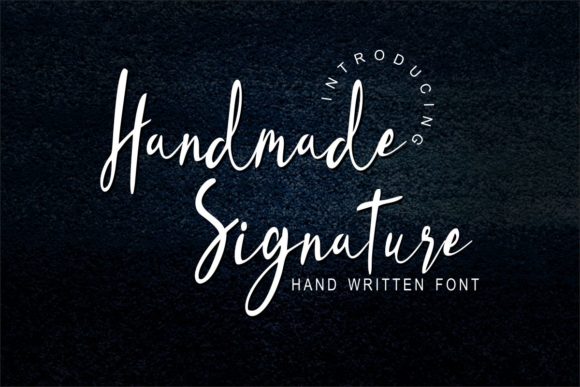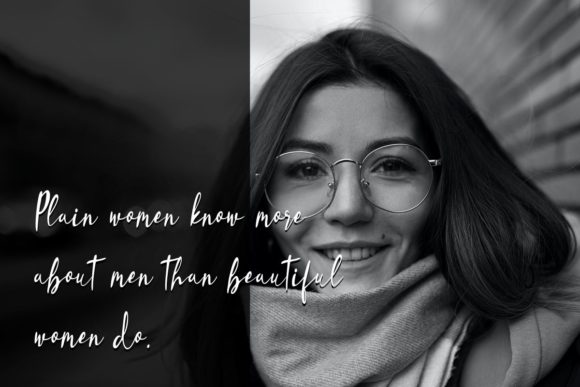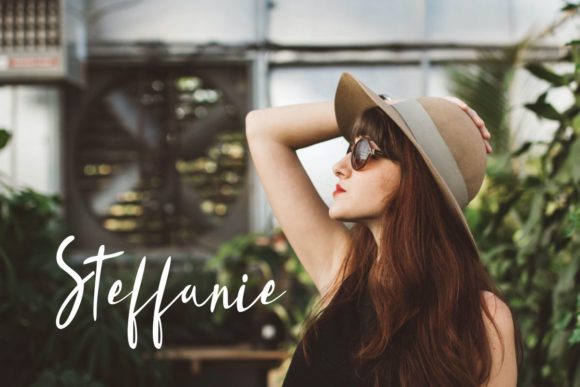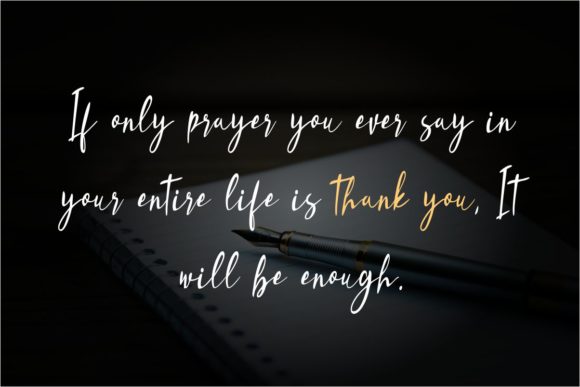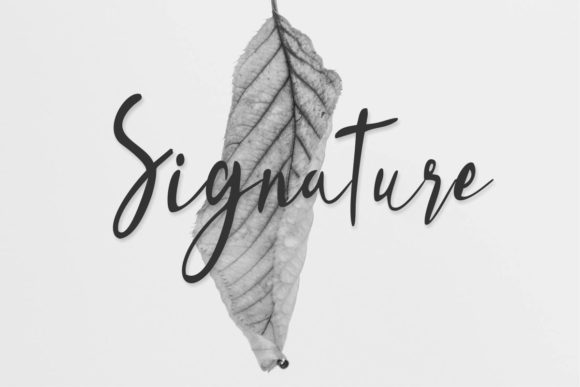
Handmade Signature Font
About Handmade Signature Font
Handmade Signature is an amazing handwritten font. It looks attractive and natural! it will take your holiday projects to the next level!